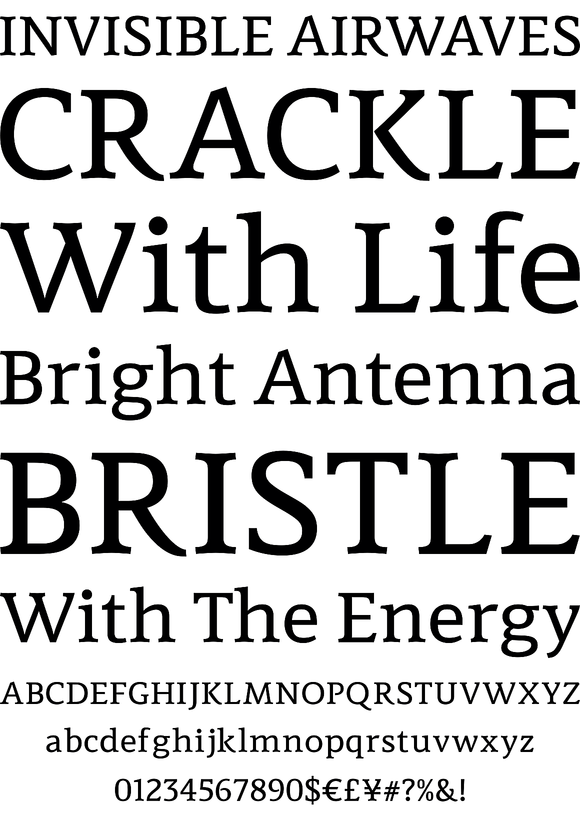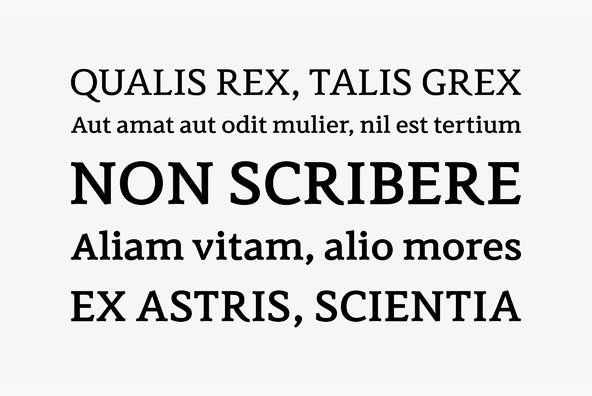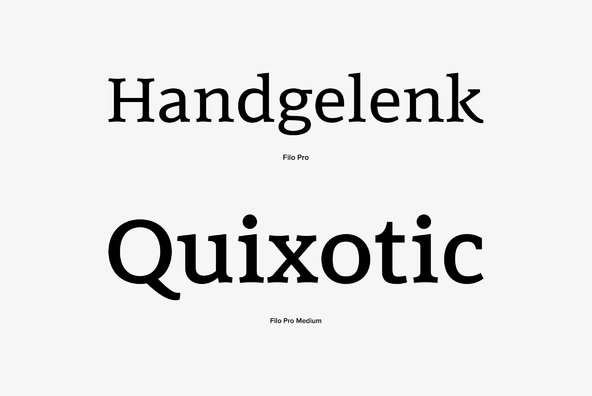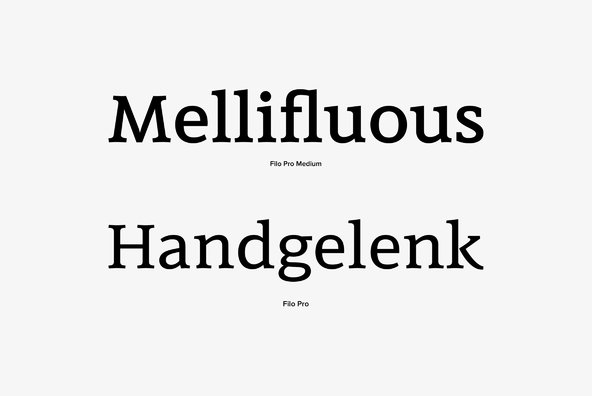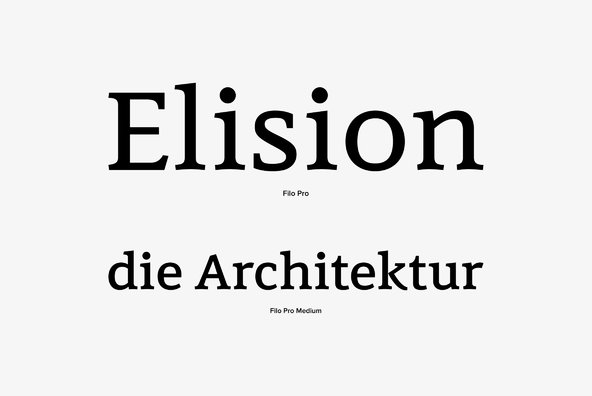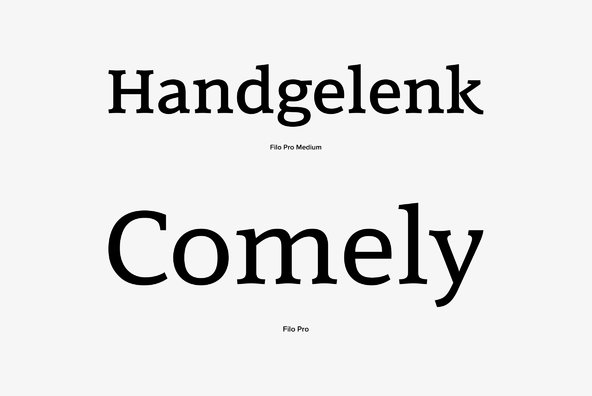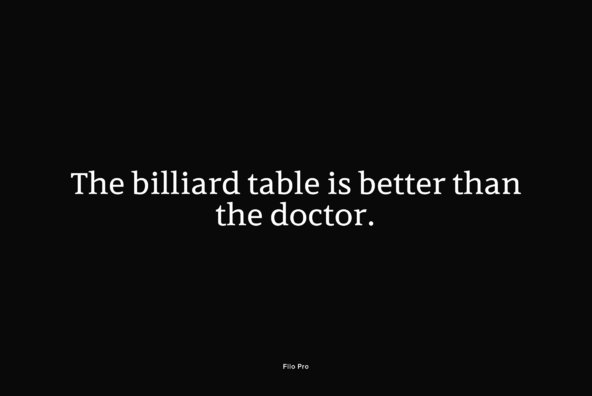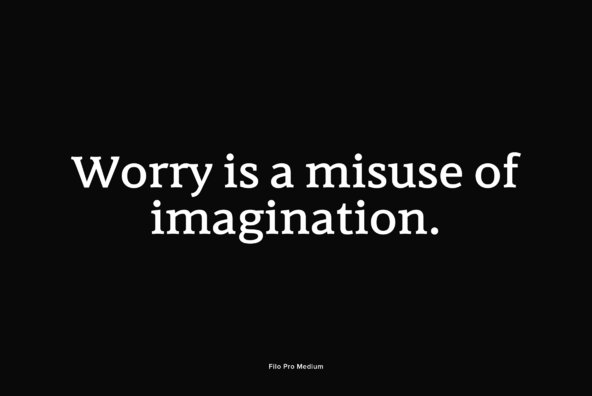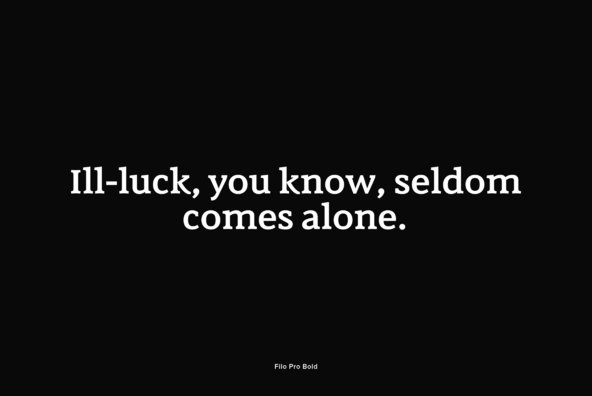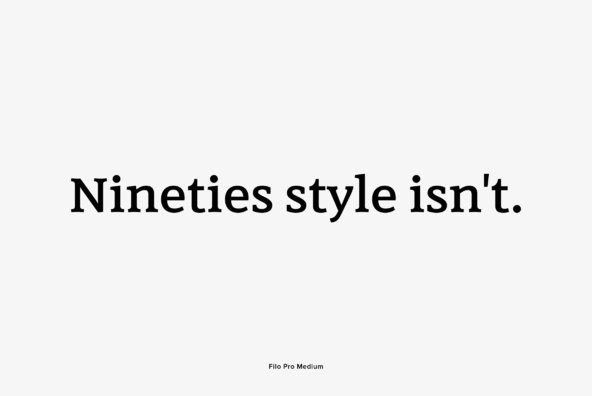
Filo Pro
Filo Pro is a very beautiful and highly legible typeface family as regular, medium and bold. It is a quite characteristic, modern interpretation of the humanistic serif. The serifs of Filo Pro are not too dominant, and its forms are soft and organic. The font family renders extremely well in text sizes but can equally well be used for headlines. The OpenType Pro family of Filo Pro comes with an extended Latin character set including a large number of beautiful ligatures as well as small caps and different sets of figures. Filo Pro has been chosen to be part of the URW++ SelecType.